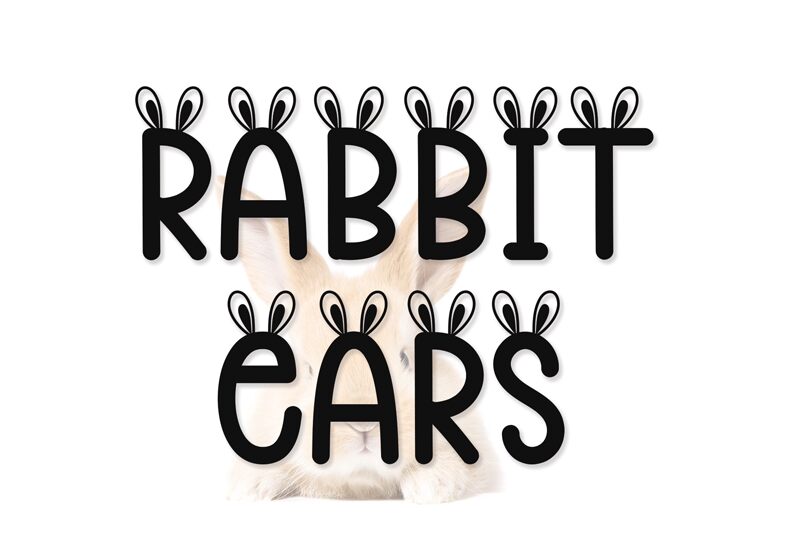
Rabbit Ears
Rabbit Ears font by Scratchones captures the magic of Easter with its decorative, rounded letters and whimsical childlike appeal. The easter script is narrow, condensed, and measured character by character to create a unique visual rhythm that fits harmonic design purposes. Rounded curved lines are prominent throughout the typeface making it aesthetic and approved for all crowds young, or senior.
The font implements a low contrast that contributes to its subtle non-invasive appearance which invites using it in greeting cards, Easter crafts, T-shirt designs, posters, invitation cards, packaging labels for sweets or food products in general.